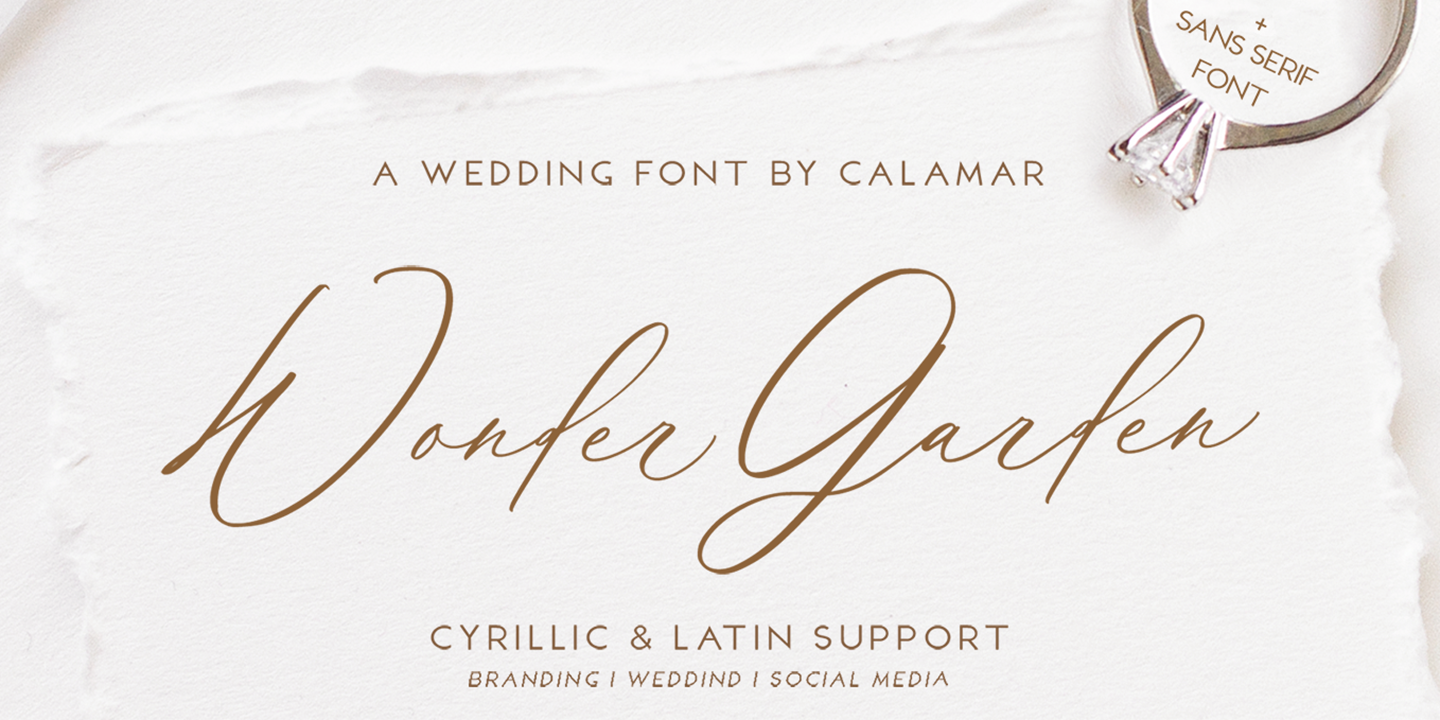
Wonder Garden Font is perfect for botanical garden signage, flower shop branding, nature-inspired wedding invitations, organic skincare packaging, children's fairy tale books, enchanted forest themes, magical nursery designs, whimsical event materials, and dreamy landscape photography studios. This enchanting typeface excels in both magical digital applications and natural print materials.
What makes Wonder Garden Font exciting is its captivating blend of botanical elegance and whimsical magic that instantly transports viewers to an enchanted world of blooming flowers and natural wonder. The carefully designed letterforms feature organic curves and delicate flourishes that capture the essence of garden beauty while maintaining excellent readability. Its magical appearance creates instant sense of wonder and natural harmony, making it perfect for brands seeking to communicate natural beauty and enchanting experiences.
The Wonder Garden Font family includes multiple blooming variations: Regular, Bold, Light, Floral, Ornamental, and Decorative versions. Each family member maintains consistent garden aesthetics while offering different visual impacts for diverse nature-inspired design applications and botanical branding needs.
Wonder Garden Font Free Download provides designers with an exceptional tool for creating enchanting communications that celebrate the beauty of nature and magical garden experiences. This remarkable typeface combines botanical inspiration with whimsical charm, making it ideal for garden centers, nature brands, children's products, and magical event companies. The font's distinctive characteristics include flowing letterforms, natural spacing, and floral details that reflect the organic beauty of gardens while ensuring excellent readability across all magical applications.
Professional designers choose Wonder Garden Font for projects requiring natural beauty and whimsical appeal. Whether developing botanical brand identities, nature-themed marketing materials, or magical event graphics, this font maintains its enchanting presence across different garden contexts. The typeface supports extensive character sets and includes nature-inspired symbols relevant to gardening, botanical communication, and magical branding.
The creation of Wonder Garden Font involved extensive study of botanical typography and garden design elements. Its enchanting appearance honors natural beauty while providing contemporary functionality for modern nature-inspired design needs. The font's organic proportions and magical character make it particularly effective for botanical businesses, children's entertainment, and nature education materials.
For graphic designers working on nature and magical projects, Wonder Garden Font offers unmatched botanical authenticity and whimsical charm. Its enchanting appearance works beautifully in garden marketing materials, children's book illustrations, and nature-themed event graphics. The font's premium quality ensures professional results whether used in digital garden campaigns or magical print applications.